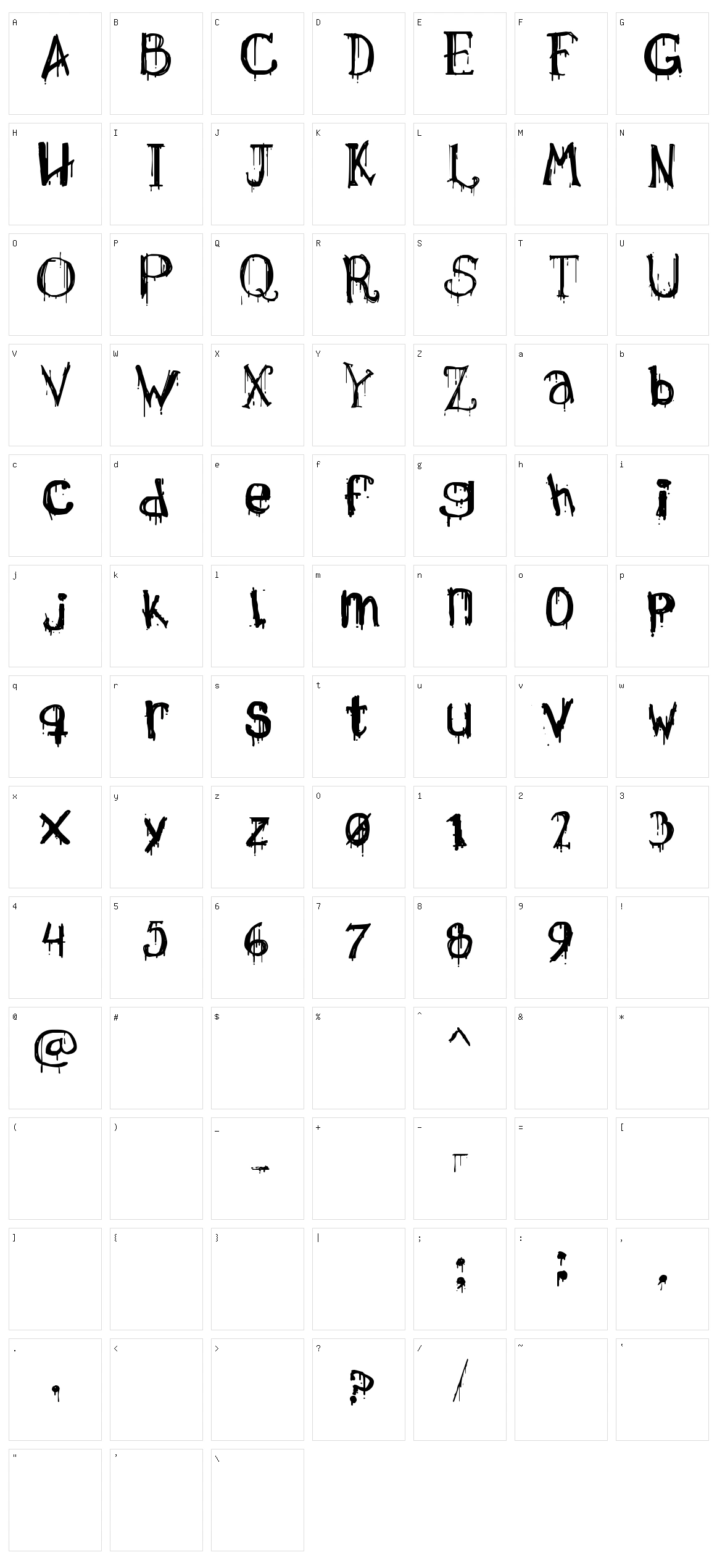
The free font Necropsy is carefully designed by Neo el feo, showcasing a thoughtful balance of creativity and usability and falls under the Horror font style. When you download the ZIP file, it contains only 68.4 KB of font files, making it lightweight and quick to download. Please review the license details below to understand permitted usage and distribution rights. If license information is not available, we recommend using this font for personal projects only or contacting the author directly for commercial usage permissions.
NECROPSY
hecha por neo el feo para los dialogos de Fausto, personaje de la serie Paola y Evafy Vs Los Mostros.